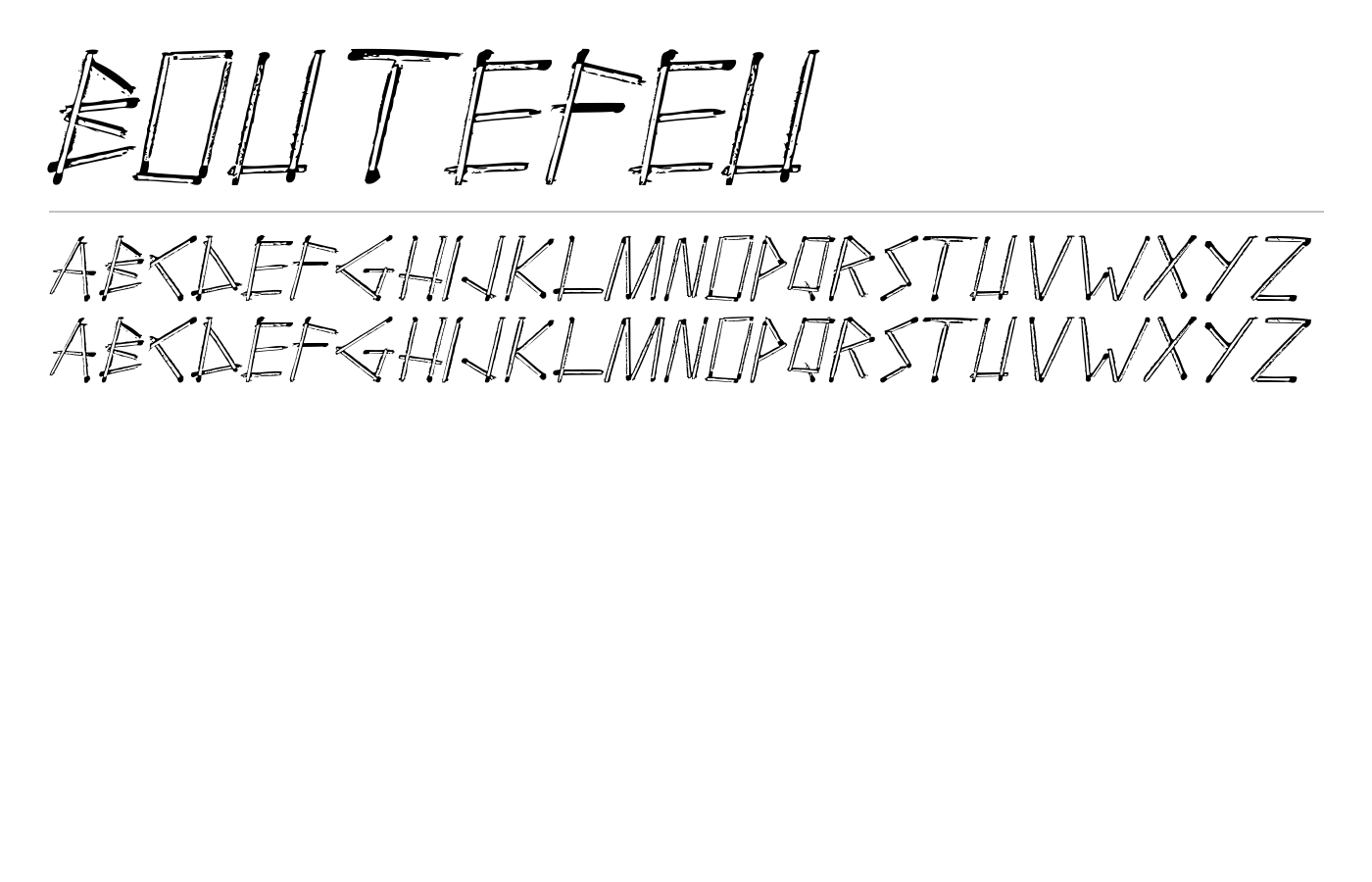
Boutefeu is a unique, hand-drawn sans serif font with a playful and sketchy feel, characterized by thin, irregular lines that resemble sticks nailed together. Its tall, narrow letterforms and slightly rough stroke texture give it an expressive, creative vibe that works well for informal, artistic branding, posters, and designs seeking a quirky, handcrafted touch. This font stands out in headlines and display uses where a distinctive, casual style is desired.
Boutefeu Font
About Boutefeu Font
| Font family | Boutefeu Font |
| Designer | Luc Mahler |